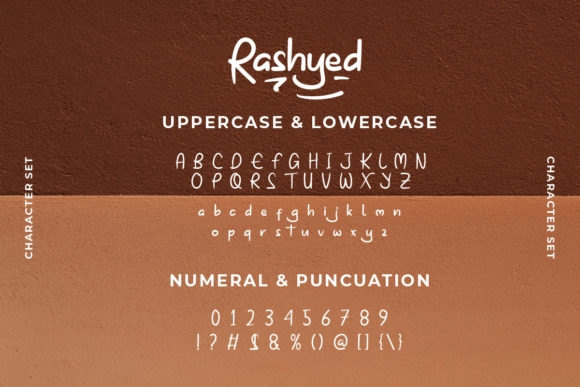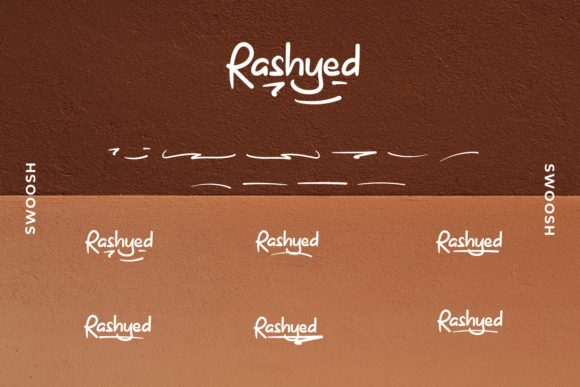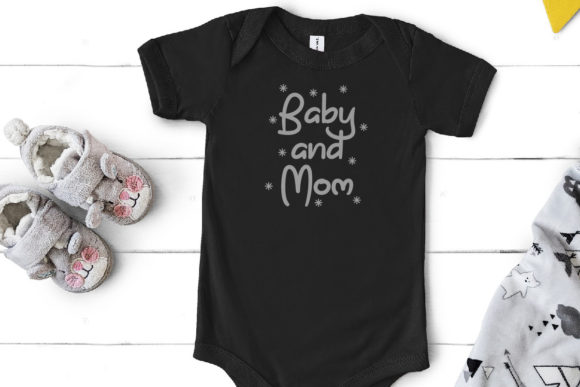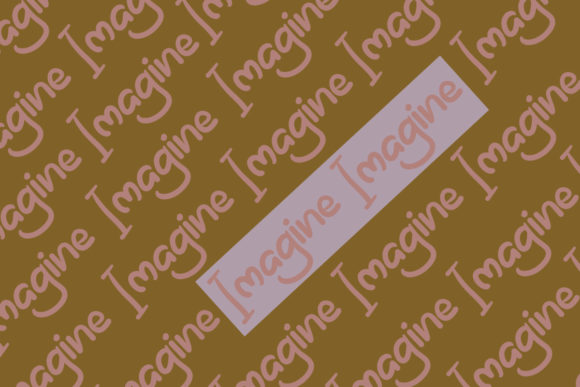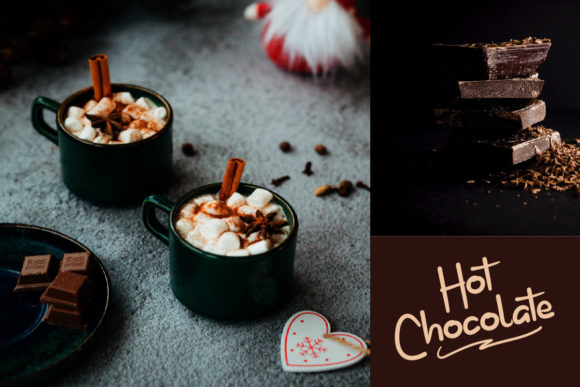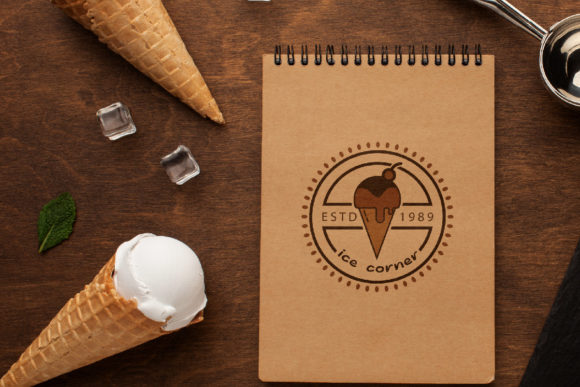
Introduction to Rashyed Font Font
Fonts play a crucial role in design, and the Rashyed Font font is a typeface that brings both character and versatility to any project. Whether you’re working on a branding project, a website, or a print design, the Rashyed Font font offers a unique style that can elevate your work.
Rashyed is a cool, organic and unique handwritten font.
Whimsical and a bit quirky, this font will brighten up each of your designs Add it confidently to your projects, and you will love the results.
Key Features of Rashyed Font Font
Why Choose Rashyed Font Font?
The Rashyed Font font is more than just a typeface – it’s a design tool that helps you communicate your message with style and clarity. Its unique character set and versatile design make it suitable for a wide range of applications, from elegant invitations to bold headlines.
With its carefully crafted letterforms and balanced proportions, the Rashyed Font font ensures readability and visual appeal across all mediums.
What makes Rashyed Font font special?
The Rashyed Font font stands out with its unique design, exceptional readability, and versatility across various design applications.